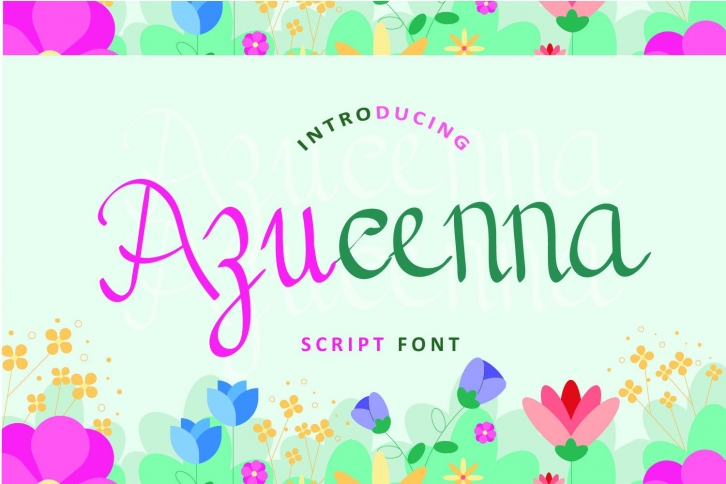
Azucenna is a fun and casual handwritten font. It looks beautiful on a variety of designs requiring a personalized style, such as wedding invitations, thank you cards, greeting cards, logos, and so on.